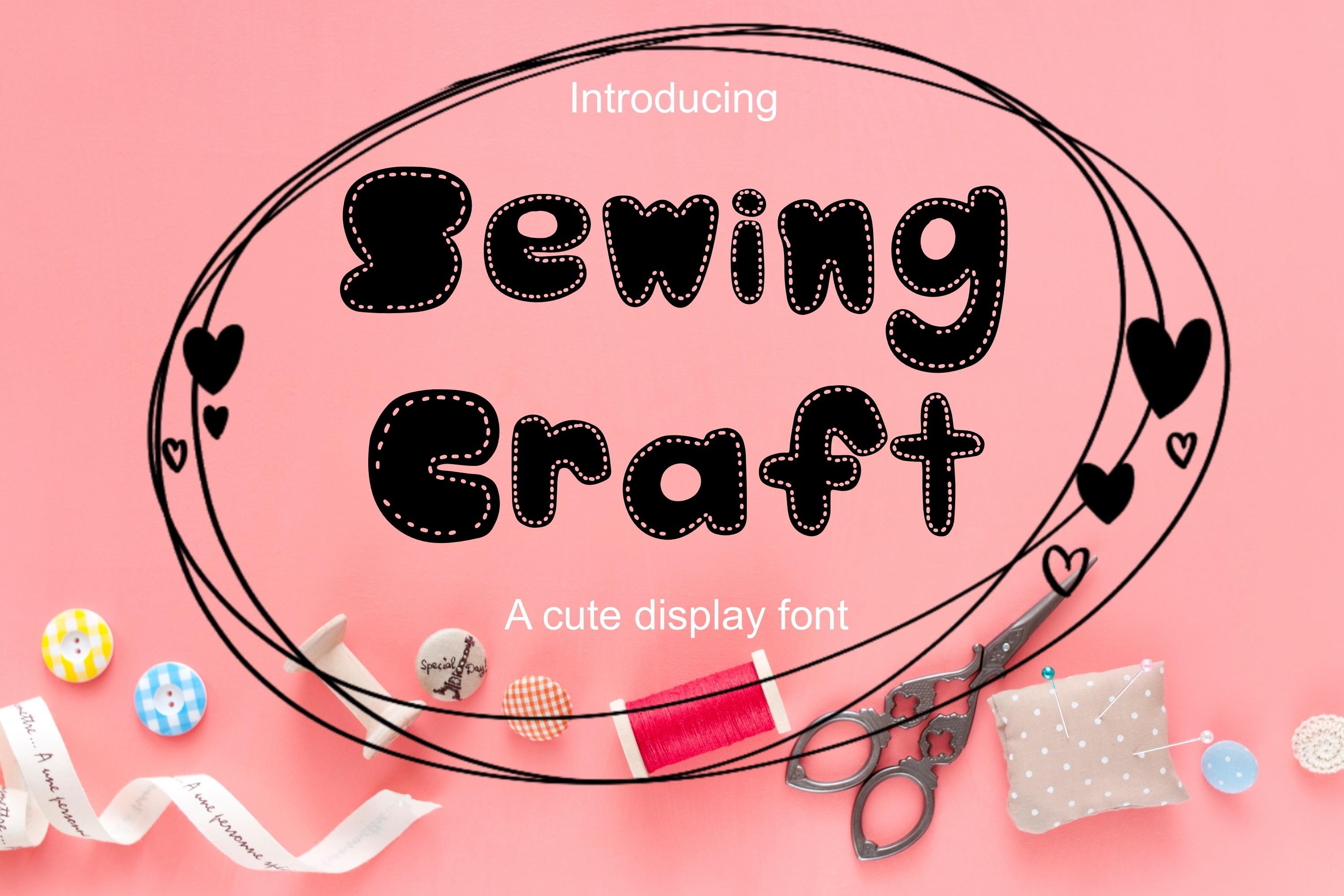
Sewing Craft Font Description
Sewing Craft is a minimal and neat display font. It is a good match for an incredibly large set of projects, so add it to your creative ideas and notice how it makes them stand out! You can add this cute display font on t-shirts, mugs, children’s books, school projects, quotes, fashion, and other crafts!